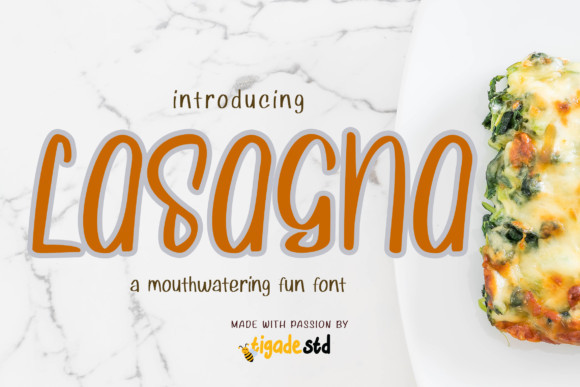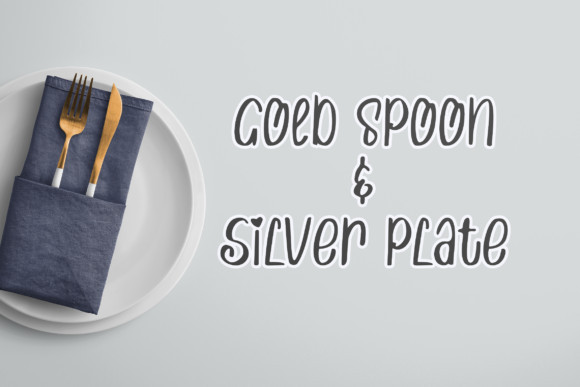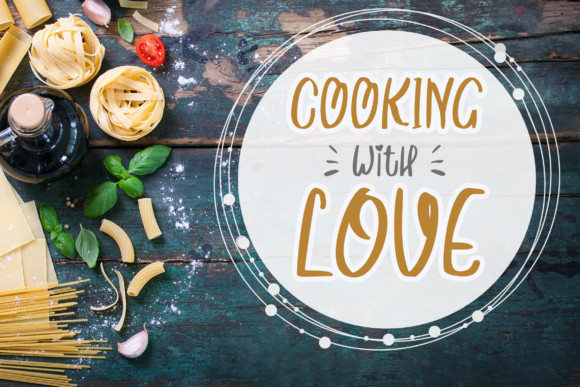
Lasagna Font
Lasagna is a mouthwatering and fun handwritten font. Use it to create spectacular designs! It goes well for various kinds of project from crafting to product branding.